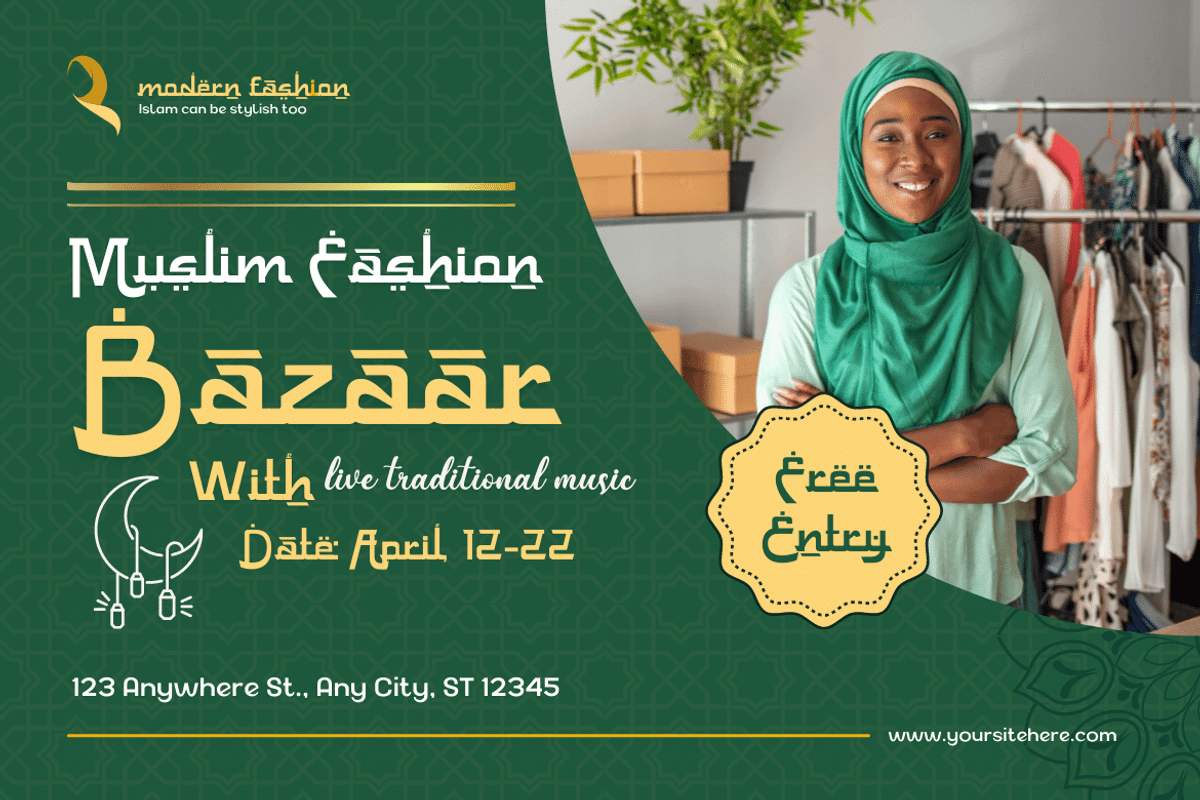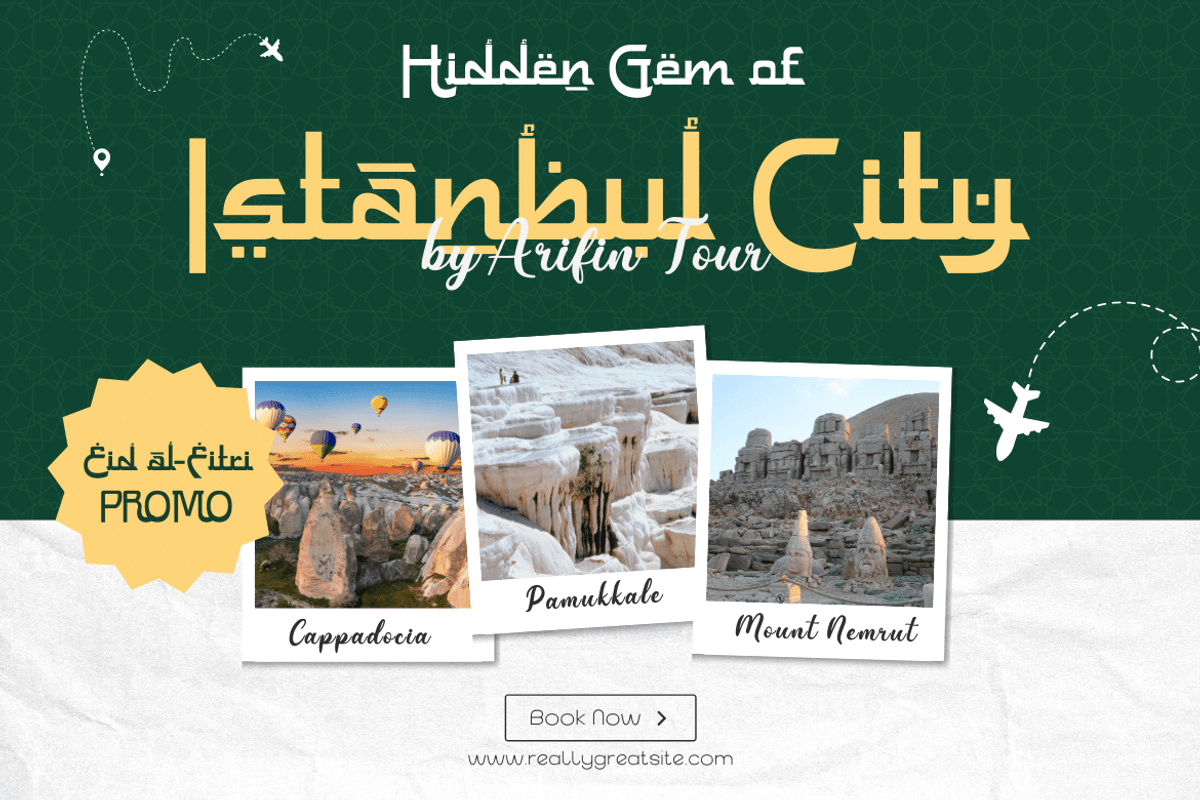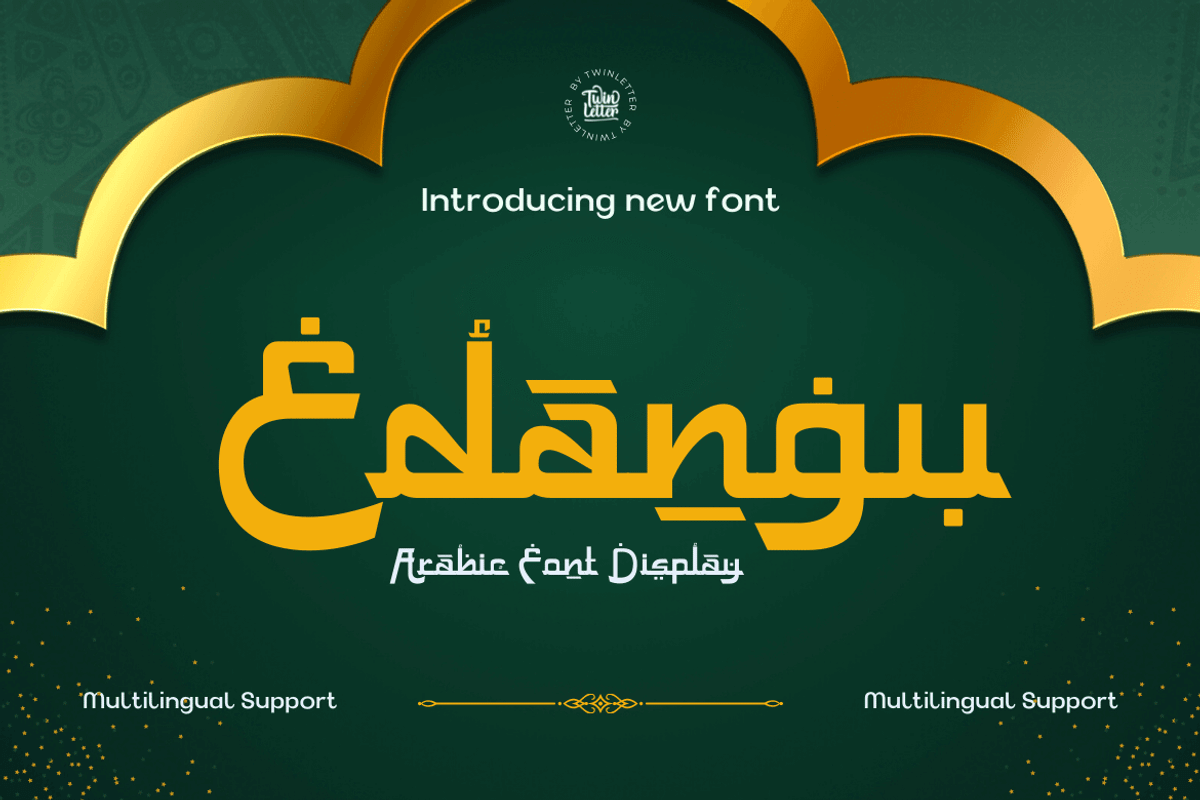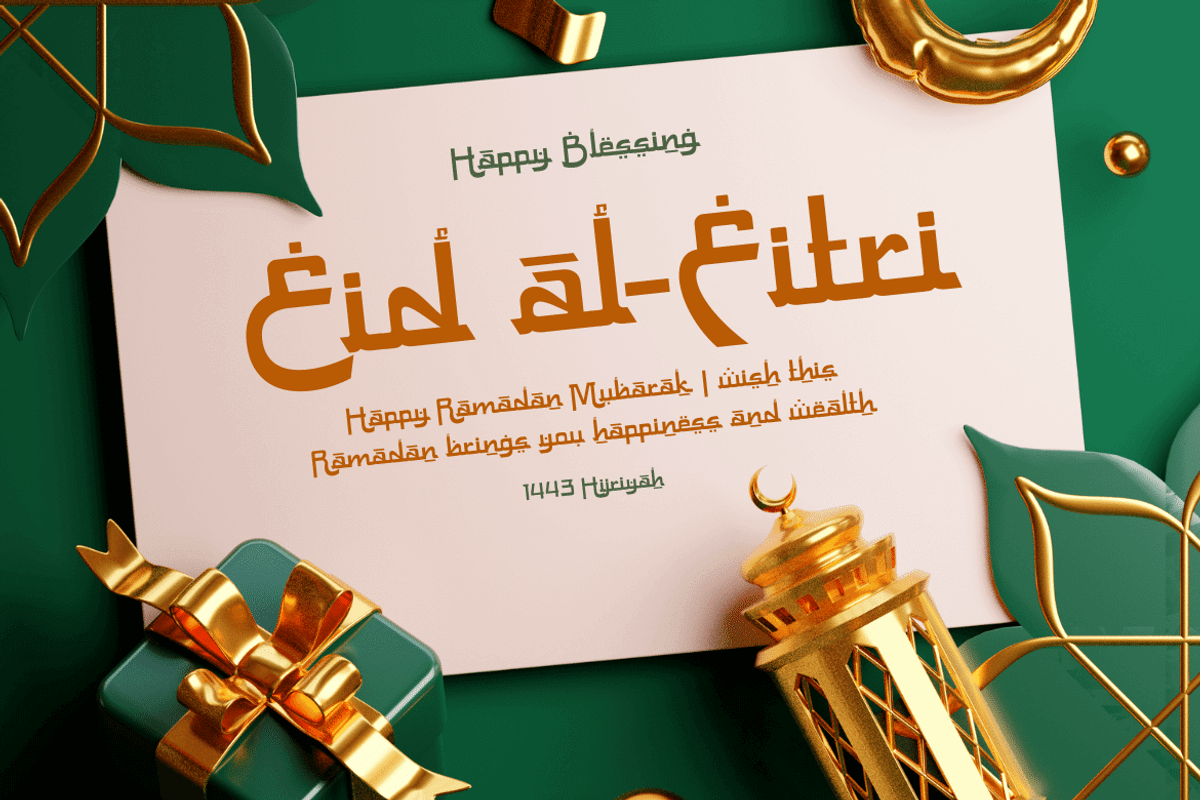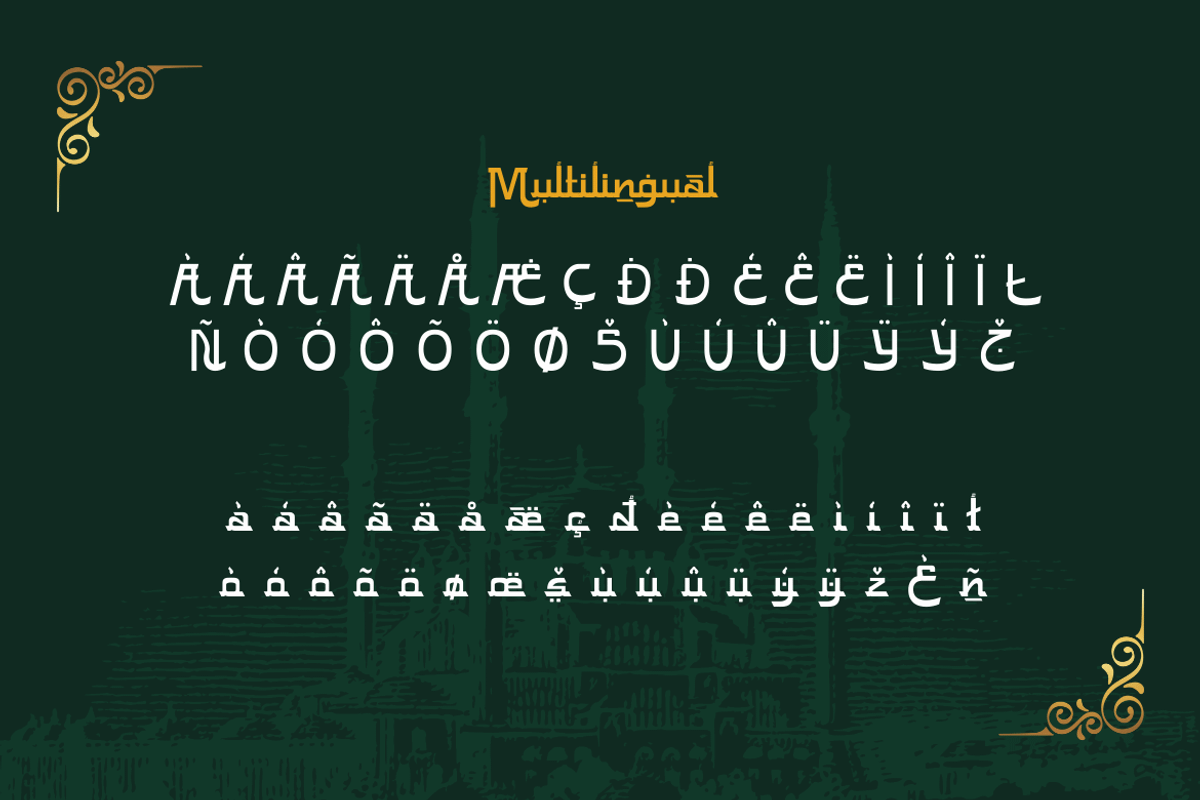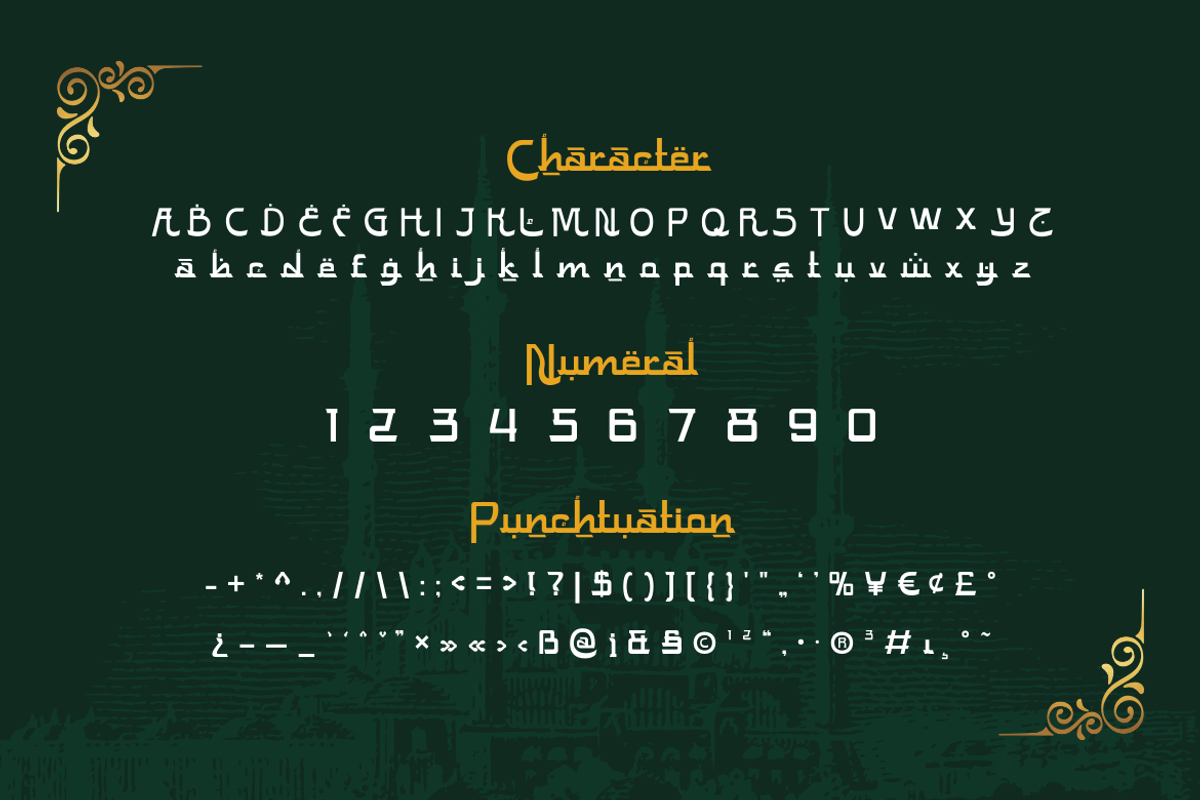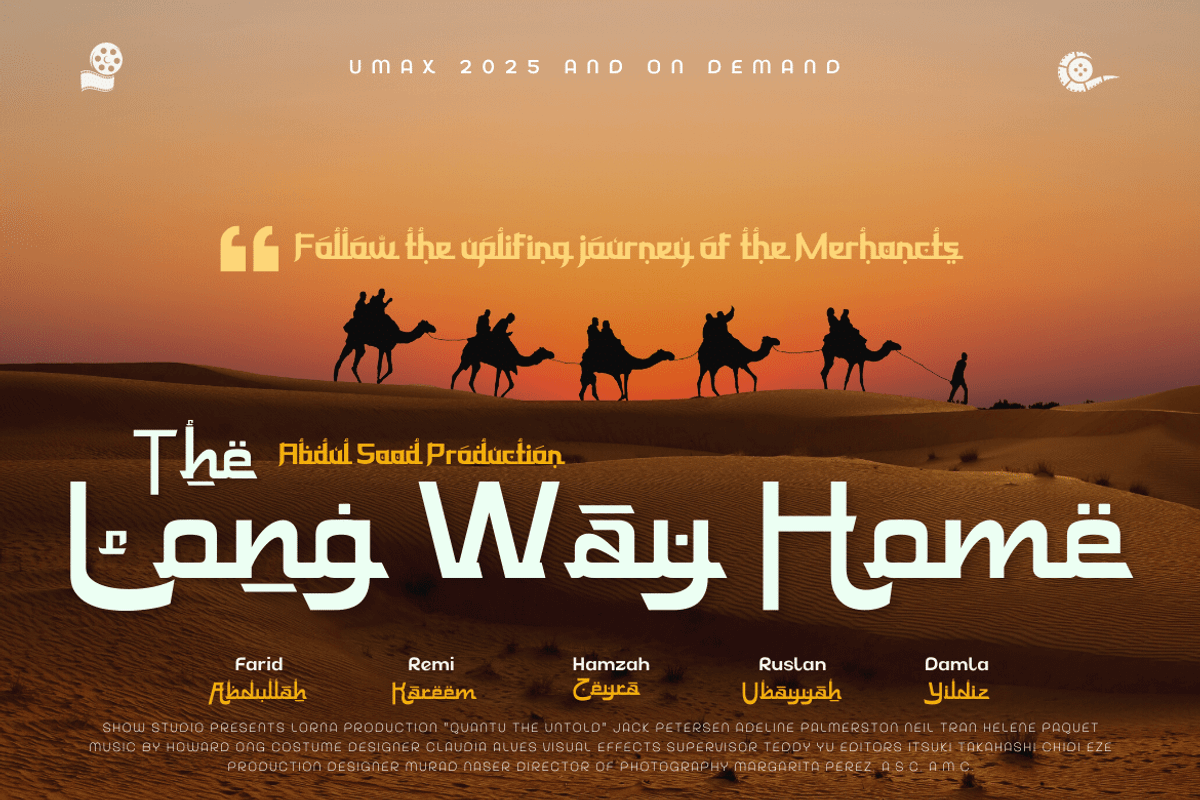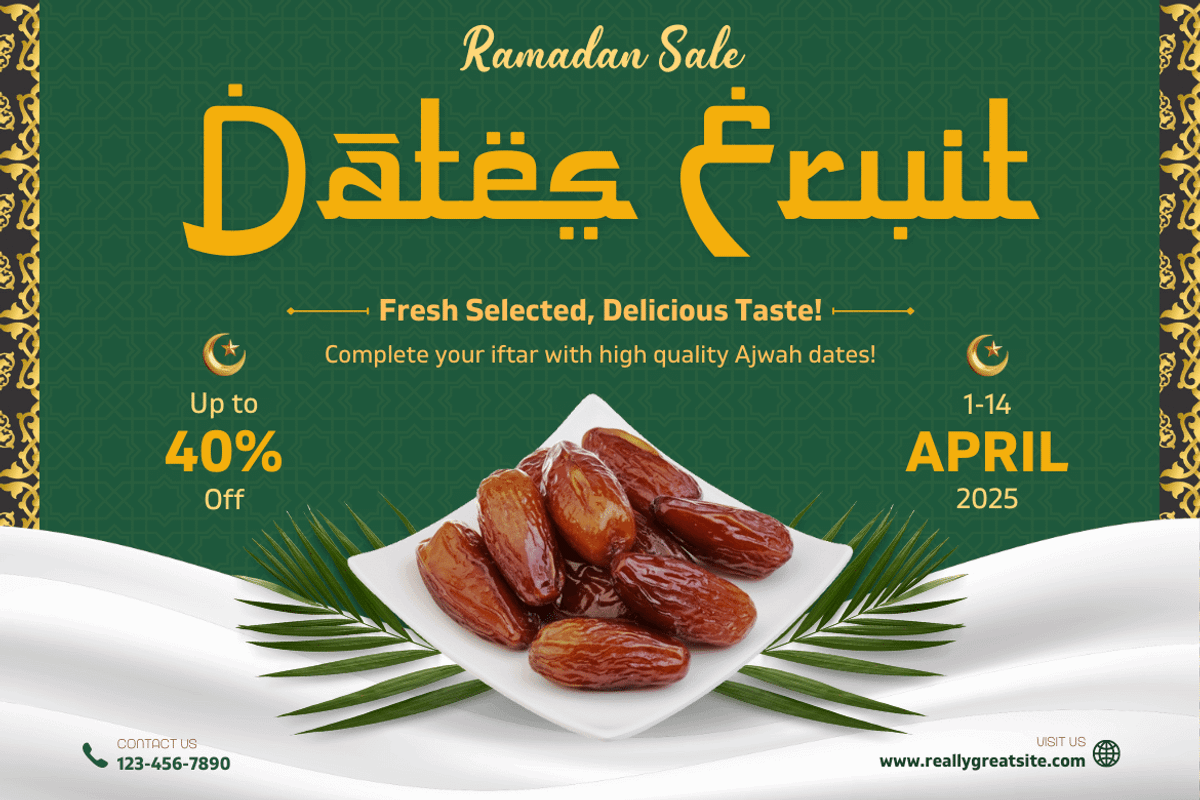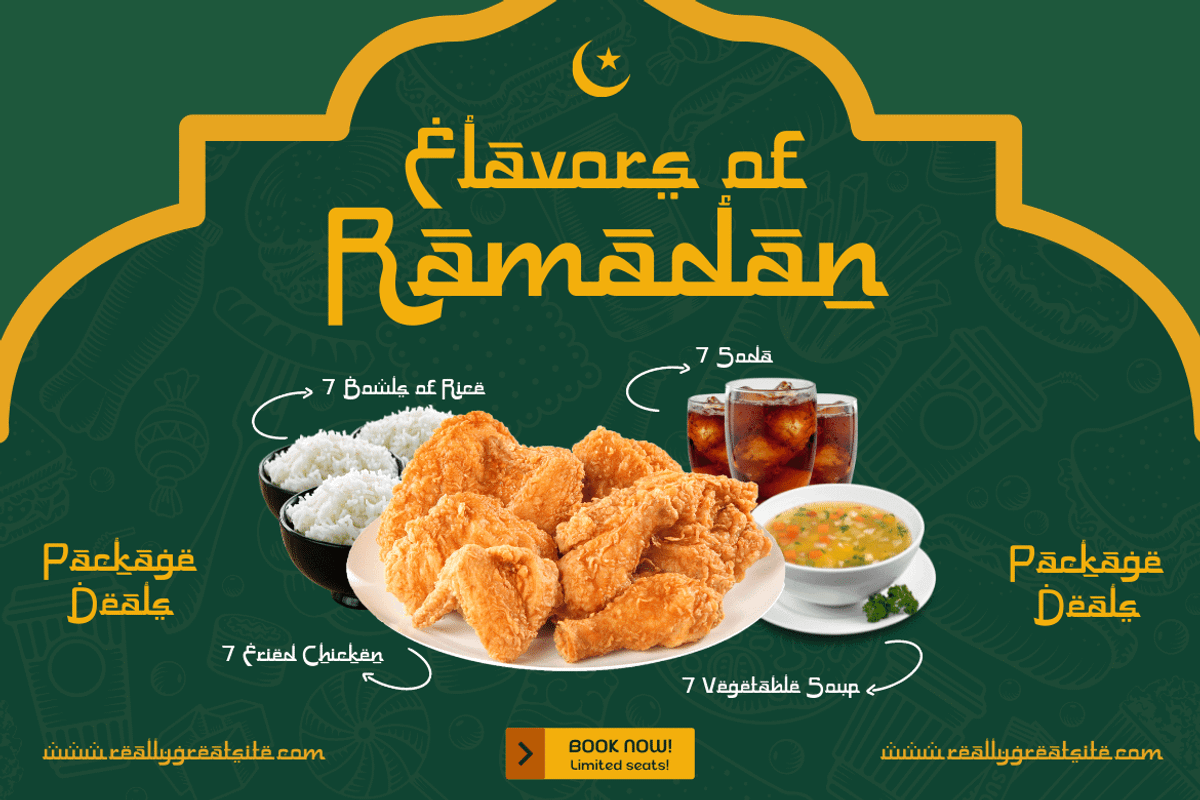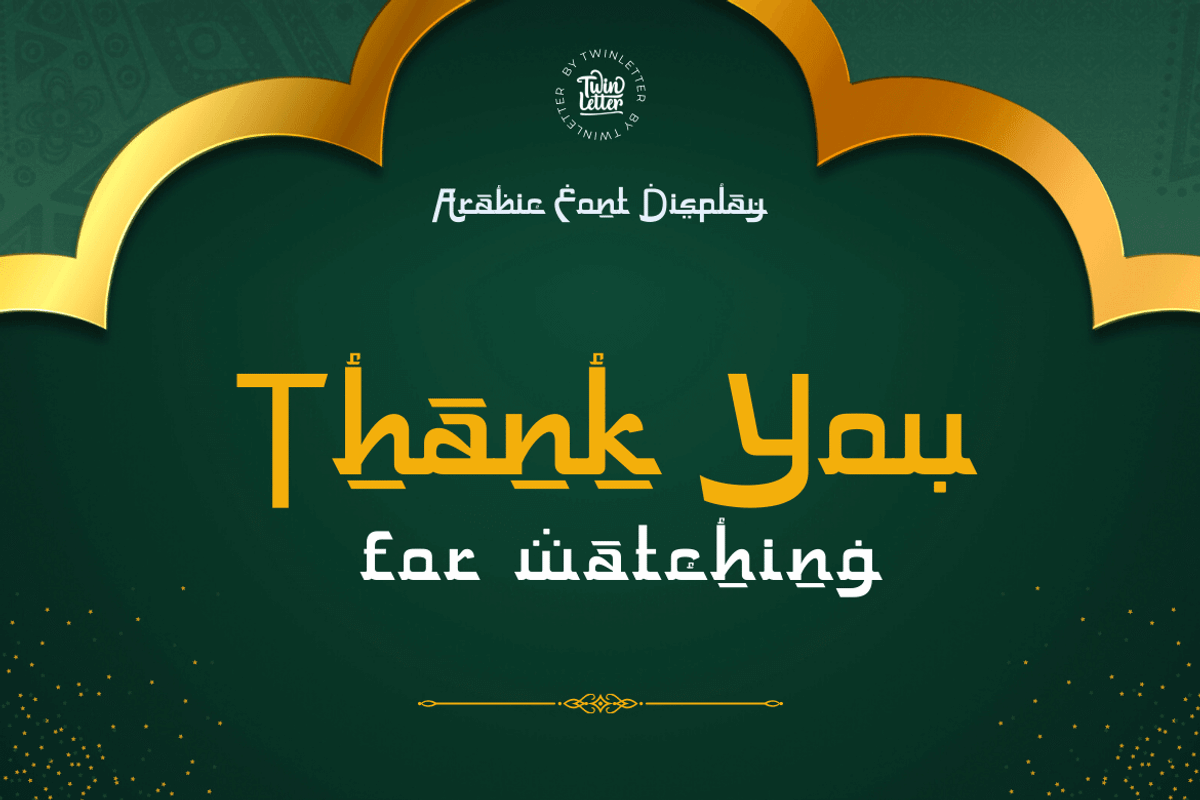
Edangu
Edangu Arabic display font is a new typeface inspired by the oriental fonts used in Arabic calligraphy and other Middle Eastern architectural features. This font features a Kufic version that has beautiful and neatly arranged shapes. This font will make your design elegant, especially designs that carry the middle eastern theme.